Typography is instrumental to many forms of communication in daily life, being used in modern advertisements and designs that we encounter every day. Typographers have practiced their craft for centuries, relaying different concepts and feelings through the intricacies of our species’ form of communication. Along the way, typography has played interesting and vital roles in culture, history, and of course, politics. Here are a few fonts that have left their mark on history.
Futura Makes a Stand Against Hitler’s Third Reich
German typeface designer Paul Renner found himself in a tough spot when the Nazi party rose to power. His position as a designer gave him influence over Germany and its surrounding nations, making him perfect for Hitler’s propaganda machine. However, instead of using the frequently used Blackletter typeface, Renner was inspired to go against the grain and create a new typeface in 1927 — Futura. Influenced by Bauhaus’ use of Roman characters, Renner’s Futura rejected the prevalent culture of stark German nationalism being currently represented by Blackletter.
Note: The details of Renner’s loyalties and intentions are still debated. You can see some discussion on the matter in the comments on this article from Typophile. Either way you look at it, Futura is a font that played a substantial role in the story of Germany during this time.
Helvetica Plays It Safe During the Cold War
Helvetica was introduced in 1957 under its original name, Neue Haas Grotesk. It was first known for its clarity, though later would become associated with treading carefully during The Cold War. After World War II, distrust festered between nations, so Hoffman chose to use the name Helvetica over Helvetia (the latter meaning Switzerland) to avoid nationalism. This decision made Helvetica acceptable to the world rather than in the clutches of a single nation, freeing it from any ideological issues fueling national distrust during The Cold War. Though a common criticism of Helvetica arose claiming that it lacked personality, the 2007 documentary “Helvetica†made an argument for the font, describing it as “ubiquitous†and “timeless.â€
Johnston Sans in the London Underground Railway Combats German Innovation
Edward Johnston created the self-named Johnston Sans during The Great War. Commonly known as Underground Railway Block-Letter, Johnston’s design was part of the war effort in that it fought against a perceived threat of cultural invasion by Germany. To this end, Johnston drew from imperialist foundations to emphasize Britain’s strength. During the time, imperialism wasn’t associated as much with negative connotations as it is today. It was actually quite the opposite: The London Underground’s strong typography reassured its citizens that Britain would prevail against outside influence of Nazism and fascist design alike.
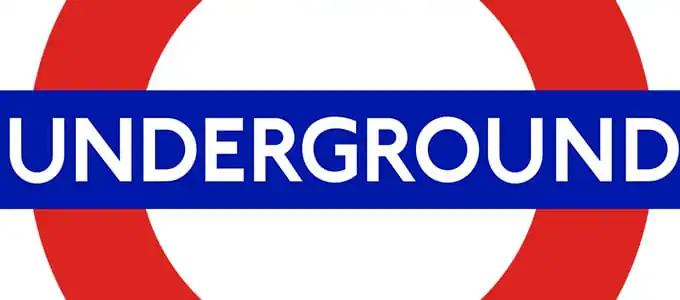
Gotham Attempts to Bring Hope Back to America
Inspired by the lettering on the Port Authority, Gotham is described by Tobias Frere-Jones as “the type of letter that an engineer would make.†Frere-Jones is one half of the duo who designed Gotham (the other being Jonathan Hoefler). In addition to appearing on cultural icons such as Coca-Cola, Netflix, and even in the Museum of Modern Art, Gotham was used by the Obama during his 2008 campaign for presidency. Being associated with New York City and its post-September 11th search for hope, Gotham affected the same optimistic aesthetic for Obama’s campaign when it was used in conjunction with “Change We Can Believe In.†Now, the beloved typeface’s creators are embittered in a $20 million conflict, with Frere-Jones suing partner Hoefler for “cheating†him out of half of the business. However, the typeface remains strong.